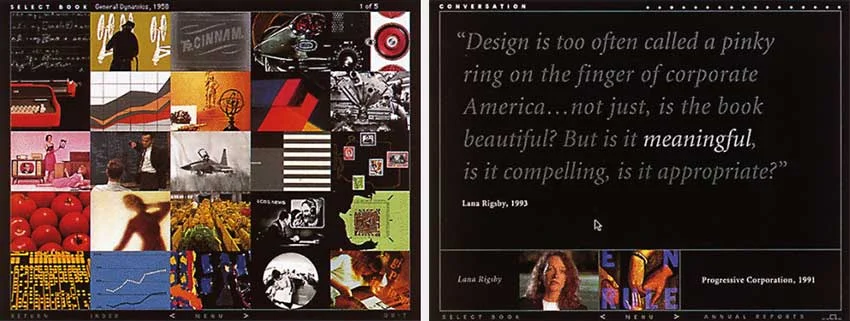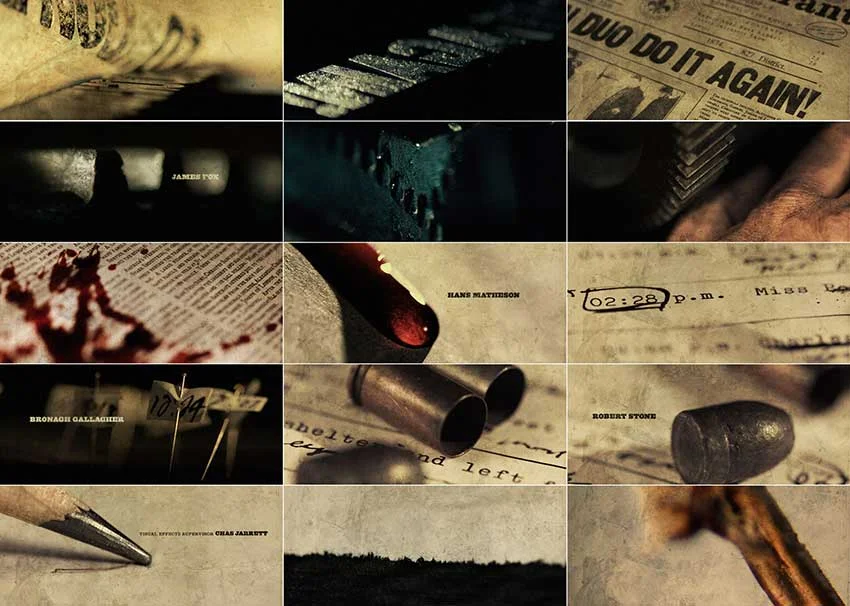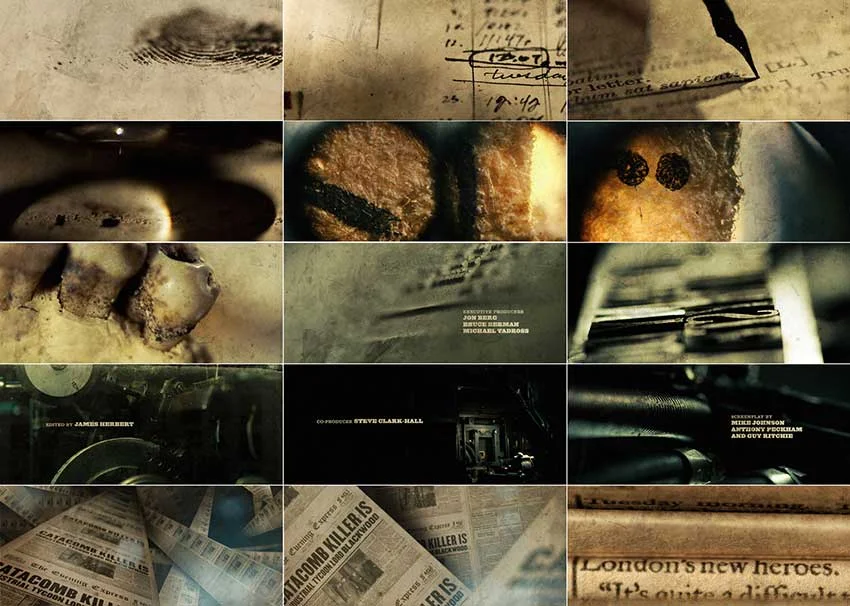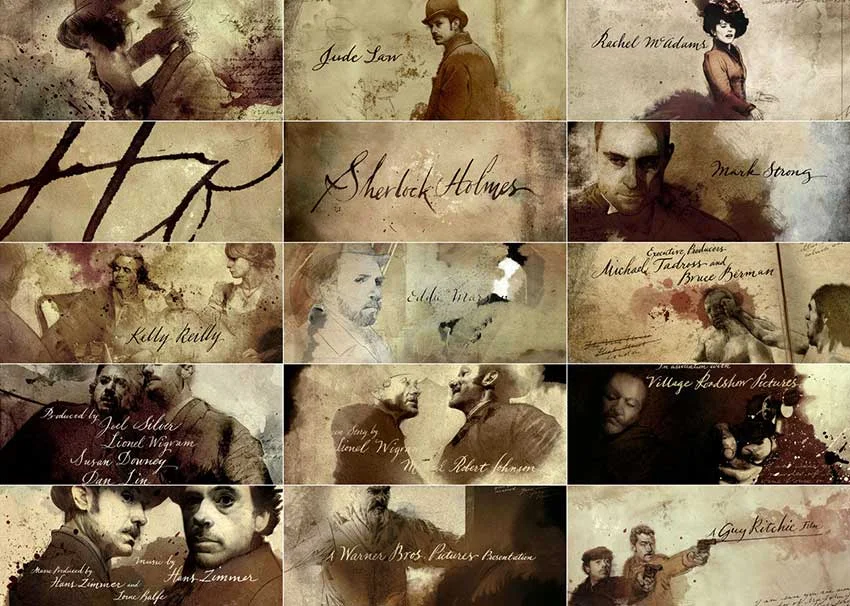
Danny Yount is a Los Angeles-based graphic designer and commercial director who has a diverse visual style and a unique range of depth and craftsmanship in motion arts and film. He has earned an Emmy for the Six Feet Under main title and was the Senior Creative Director at Prologue Films where he designed the main titles and end credit sequences for Kiss Kiss Bang Bang, Rocknrolla, Sherlock Holmes, Tron Legacy, Oblivion, Iron Man 1, 2, and 3 and many others.
Danny's artistic mastery of negative space is powerful and his gestural visuals seductively lure the viewer into the moving canvas. He uses type dramatically to hint at the movie's undercurrent. We were excited to have him share a bit about his work, and one of our favorite sequences, Sherlock Holmes.
You're a self-taught designer. How did you go about refining your skills for designing title sequences?
A lot of the experience I've gained is mostly from pitching ideas. There is a real art to it. Most title ideas are very short visual statements with strong iconic images. You also have to build enough story to be able to steer the conversation in a few different directions if necessary—for example, the slightest twist in an ending can change the entire concept. The trick in pitching is to not be so rigid that you cannot steer it that way, and to have other ideas in your back pocket if you need them.
Your father possesses great illustration skills. Was your father's drawing skills an influence in your life?
Very much so, yes. My dad would draw as a hobby and he would bring his materials with him when on a family vacation at relatives houses etc. He could look at as scene or object and draw it perfectly in a few hours - I never had skill like that and was always fascinated by his abilities. He is also good at designing and building things.
Early in your career, you had a chance to work with John Van Dyke in Seattle, who was your mentor. How did he influence your typography?
John had impeccable taste and and taught me how to make design that was elegant and sophisticated. That world was completely new to me when I was hired by him—my upbringing was very blue-collar. I did not understand culture outside of McDonald’s and 70s reruns. And I had never been outside of the country nor had I received a formal design education.
Working on annual reports (during a time when they were well designed and revered as such) taught me a lot about the nuances of typography that is very engineered but legible—I had no idea of how deep typography went before working on annuals.
Mead Paper Forty Years of Ideas
Which reports did you design?
Boeing, ICOS, Weyerhauser and some projects for Mead Paper Company. We also created a very popular CD-ROM on ARs that featured a great history of them since the 50s—it was called 40 Years of Ideas and was a featured in Graphis Magazine.
Early title concept for Sherlock Holmes
How did the Sherlock Holmes project come about?
The year prior I designed the titles for RockNRolla which were well received. So Guy Ritchie wanted something a little like that and Joel Silver wanted to do a shoot that involved what was then modern-day machinery: the printing press. The only problem was I then had to pitch to both parties—but it was still a lot of fun. I think it was one of the largest pitches I have ever done.
Sherlock Holmes early printing press storyboard concepts
Can you describe the process for Sherlock Holmes?
I was invited to fly out to present them at one of the sets in London and see some of the film, so I had a very strong sense after that of where they wanted to go visually. The brief I was given was to do a live action shoot that involved a lot of newspaper headlines from the late 1800s, which would give a little history to the early beginnings of Holmes and Watson and lead into the first scene of the film following the last headline on top of a stack of newspapers laid at the doorstep. We also wanted to show part of the printing process of that time period using the linotype machine and woodblock type headline compositions.
After going back and forth a bit, we concluded that it should be a macro shoot and very graphic, so we rented some time at a printing museum and set up several still shoots to get all the material we needed for storyboards. Several months went by and the film had taken shape more so they decided to lose the headlines sequence. They went from wanting a full main title to having a short main title and an end credit sequence. They also wanted the end credits to be an anthem to the film, using highlights from the movie.
I have to confess that the original look I created was less influential in the end.
Beautiful. What typeface was used in the sequence? Or was it hand-lettered?
Hand-lettered by a very good calligrapher, Anne Robin.
Sherlock Holmes studio logos
Sherlock Holmes main title
Sherlock Holmes end credit sequence
Is there a typeface that strikes your fancy right now?
I like a lot of new new faces like Regular and Normetica and Nudista and Titling Gothic, or anything from Hoefler Type Foundry (huge fan of Gotham, Champion and Knockout). But I’m still a sucker for the classics—Trade Gothic, DIN, Helvetica and Futura. Maybe even Grotesque (ha). Very German in my selection, I know. Wow—I feel really geeky now… Back in the day I was huge on Emigré Fonts, Letter Gothic and anything that looked like David Carson type vomit—but let us not go there…